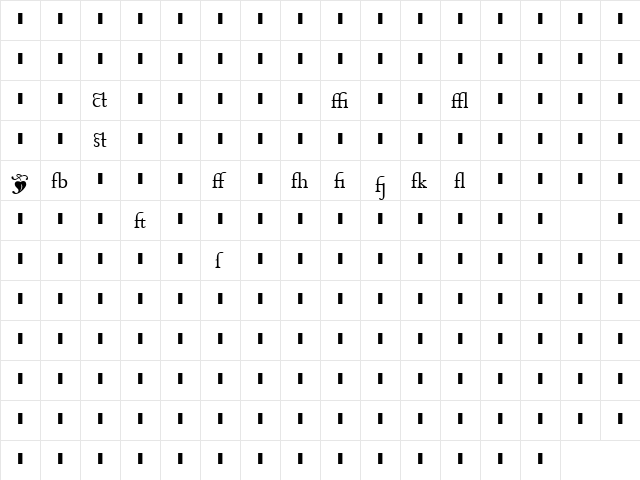
MonteverdiLigatures Regular
Design Context for MonteverdiLigatures Typeface
MonteverdiLigatures takes a measured approach to typography — its balanced proportions and neutral character make it a reliable workhorse for both digital and print work.